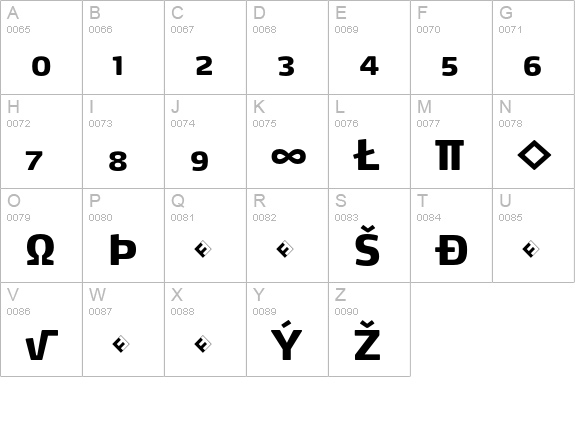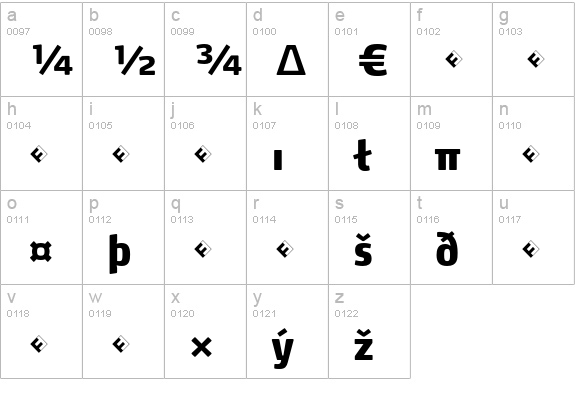
Max-BlackExpert Font Details
Introducing Max-BlackExpert font, a stylish and versatile typeface designed to make a bold statement. With its sleek and sophisticated appearance, this font exudes confidence and professionalism, making it perfect for a wide range of design projects. Featuring sharp lines and a modern aesthetic, Max-BlackExpert font is sure to capture attention and leave a lasting impression. Whether you're creating a sleek logo, designing a striking poster, or crafting a standout website, this font is guaranteed to elevate your work to the next level. What's even better is that Max-BlackExpert font is available for free download at FontsMarket.com. That's right, you can access this premium font at no cost, making it a must-have addition to your font collection. Don't miss out on the opportunity to enhance your designs with the sleek and stylish Max-BlackExpert font today!